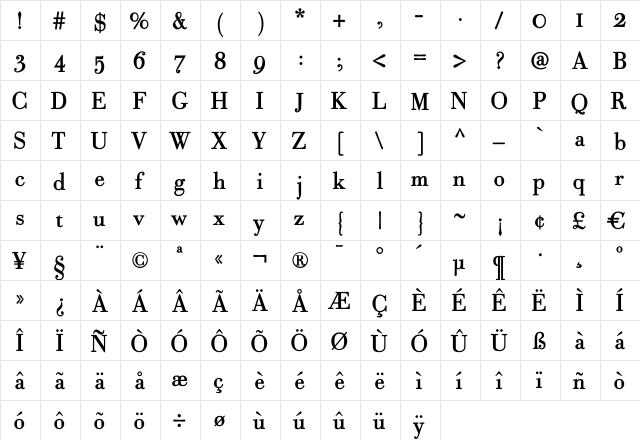
Robusta Roman
Design Context for Robusta Typeface
Robusta is a composed and adaptable typeface that performs quietly and consistently across a wide range of design contexts.
Pro Tip: Pair Robusta with a font of contrasting weight or personality to build a more expressive typographic hierarchy.